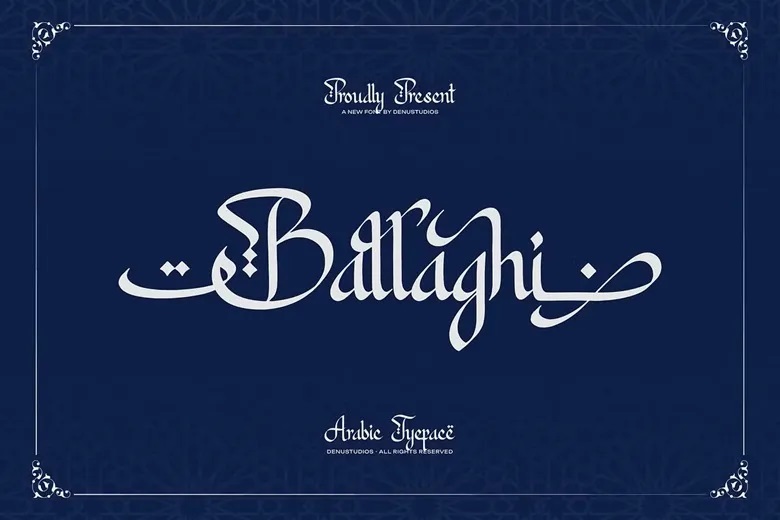
Ballaghi Font
Ballaghi is a contemporary Arabic font by Denustudios, crafted to bring beauty and style to a variety of projects. It works well for logos, product packaging, branding, homeware designs, posters, mugs, shopping bags, name cards, book covers, greeting cards, invitation cards, special events, labels and any design project that requires an authentic Arabic feel.
Ballaghi Arabic Font